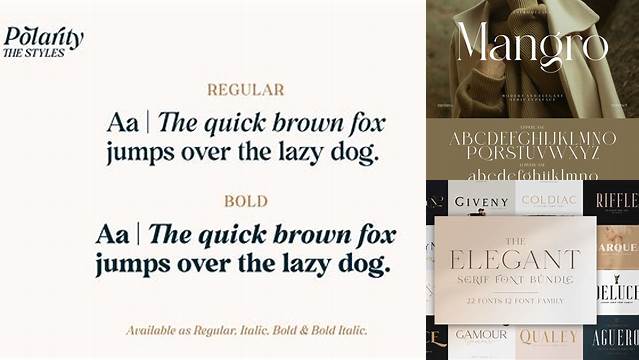
Polarity Elegant Serif Font: Free Download & Usage Guide
Hey guys! Are you on the hunt for a stylish and sophisticated font to elevate your design projects? Look no further! The Polarity Elegant Serif Font Family is here to save the day. This font family is a fantastic choice for a wide range of applications, from branding and logos to editorial design and web typography. In this comprehensive guide, we'll dive deep into what makes Polarity so special, where you can download it for free, and how to use it effectively in your projects. So, let's get started!
What Makes Polarity Elegant Serif Font Family So Special?
Polarity isn't just another serif font; it's a carefully crafted typeface that exudes elegance and readability. The font family boasts a classic serif structure with a modern twist, making it versatile enough for both traditional and contemporary designs. What really sets Polarity apart is its attention to detail – the subtle curves, the balanced letterforms, and the overall harmony create a visual experience that is both pleasing and professional.
One of the key features of Polarity is its versatility. The font family typically includes multiple weights, ranging from light to bold, and sometimes even italic styles. This means you can use Polarity for headlines, body text, and everything in between. Imagine crafting a sleek logo with the bold weight, then using the regular or light weight for the accompanying text – the possibilities are endless!
Moreover, Polarity’s readability is top-notch. The clear and distinct letterforms ensure that your message comes across effortlessly, whether it’s on a business card, a website, or a magazine spread. This is especially crucial for body text, where legibility can make or break the reader’s experience. With Polarity, you can be confident that your text will not only look beautiful but also be easy to read.
Another aspect that makes Polarity special is its adaptability to various design styles. Whether you're working on a minimalist design, a vintage-inspired project, or a modern and edgy concept, Polarity can seamlessly blend in. Its timeless appeal ensures that your designs will remain stylish and relevant for years to come.
Polarity is often designed with a generous x-height (the height of lowercase letters), which further enhances its readability. This feature, combined with the balanced letter spacing, makes Polarity a joy to read, even in longer texts. Plus, the font often includes a wide range of characters, including ligatures, alternates, and special symbols, giving you even more creative freedom.
How to Use Polarity Elegant Serif Font Family Effectively
Okay, you've downloaded Polarity – awesome! Now, let's talk about how to use it effectively in your design projects. This font is a powerhouse of elegance and versatility, but like any tool, it needs to be wielded with skill. Here are some tips to help you make the most of Polarity.
First and foremost, consider the context of your project. Polarity’s classic serif structure makes it an excellent choice for projects that require a touch of sophistication, such as branding for luxury goods, editorial layouts for high-end magazines, or invitations for formal events. However, it can also work beautifully in more contemporary designs when paired with the right elements.
Pairing fonts is crucial when using Polarity. Since it’s a serif font, consider pairing it with a clean, modern sans-serif for a balanced look. For headlines, you might use Polarity in a bold weight, while using a sans-serif font for body text. This creates a visual hierarchy that is both pleasing and easy to read. Some popular sans-serif pairings include Helvetica, Arial, and Open Sans.
Pay attention to font weights and styles. Polarity typically comes in multiple weights, so take advantage of this versatility. Use heavier weights for headlines and subheadings to grab attention, and lighter weights for body text to ensure readability. If the font family includes italic styles, use them sparingly to add emphasis or contrast.
Kerning and leading are your best friends when working with any font, including Polarity. Kerning refers to the spacing between individual letters, while leading is the vertical space between lines of text. Adjusting these settings can significantly impact the readability and visual appeal of your text. Make sure the kerning is balanced and the leading provides enough breathing room between lines.
Color choices can also influence how Polarity looks in your designs. For a classic and elegant look, consider using neutral colors like black, white, and gray. If you want to add a pop of color, choose hues that complement the font’s sophistication, such as deep blues, greens, or muted golds.
Use Polarity sparingly in logos. While Polarity can be a fantastic choice for logos, avoid overusing it. A logo should be unique and memorable, so make sure Polarity aligns with your brand’s identity. Consider using a custom modification or pairing it with a distinctive visual element to make your logo stand out.
Test your designs across different mediums. What looks great on your computer screen might not translate well to print or mobile devices. Always preview your designs in various formats to ensure that Polarity remains legible and visually appealing.
Common Questions About Polarity Elegant Serif Font Family
Let’s tackle some frequently asked questions about Polarity Elegant Serif Font Family to clear up any lingering doubts you might have. Understanding these nuances can help you use the font more effectively and avoid common pitfalls.
Is Polarity Elegant Serif Font Family free for commercial use? This is a crucial question, and the answer depends on where you downloaded the font. Always check the licensing agreement before using Polarity in commercial projects. Some free versions may be restricted to personal use only, while others allow commercial use. If you’re unsure, it’s best to contact the font designer or distributor directly to clarify.
What are the best font pairings for Polarity? As mentioned earlier, Polarity pairs beautifully with clean, modern sans-serif fonts. Some popular choices include Helvetica, Arial, Open Sans, and Montserrat. These sans-serif fonts provide a nice contrast to Polarity’s serif structure, creating a balanced and visually appealing design.
Can I use Polarity on my website? Absolutely! Polarity is well-suited for web typography, especially for headlines and body text. However, ensure that you use a web-friendly format, such as WOFF or WOFF2, to optimize the font for online use. Also, consider the loading time of the font file to ensure it doesn’t slow down your website.
How many weights and styles does Polarity typically have? The number of weights and styles can vary depending on the specific version of Polarity. Typically, a complete font family will include at least regular, bold, and italic styles. Some versions may also offer light, medium, and extra-bold weights. The more weights and styles available, the more versatile the font family will be for your projects.
Is Polarity suitable for long-form content? Yes, Polarity’s excellent readability makes it a great choice for long-form content, such as articles, blog posts, and books. Its clear and distinct letterforms ensure that readers can comfortably engage with the text. However, be mindful of the font size and leading to maintain optimal readability.
Where can I find inspiration for using Polarity? If you’re looking for inspiration, check out design websites like Behance, Dribbble, and Awwwards. These platforms showcase a wide range of design projects that utilize elegant serif fonts, including Polarity. You can also explore magazines, books, and branding materials to see how designers are using similar fonts in real-world applications.
What if I can’t find a free version of Polarity with a commercial license? If you can’t find a free version of Polarity that meets your licensing needs, consider purchasing a commercial license from a reputable font foundry. This ensures that you have the legal right to use the font in your projects, and it also supports the font designer’s work. Alternatively, you can explore other elegant serif fonts that offer commercial licenses at a reasonable price.
Conclusion: Embrace the Elegance of Polarity
So there you have it – a comprehensive guide to the Polarity Elegant Serif Font Family! We’ve covered what makes this font so special, where to download it for free, how to use it effectively, and answered some common questions. Polarity is a fantastic choice for adding a touch of elegance and sophistication to your design projects. Its versatility, readability, and timeless appeal make it a valuable addition to any designer’s toolkit.